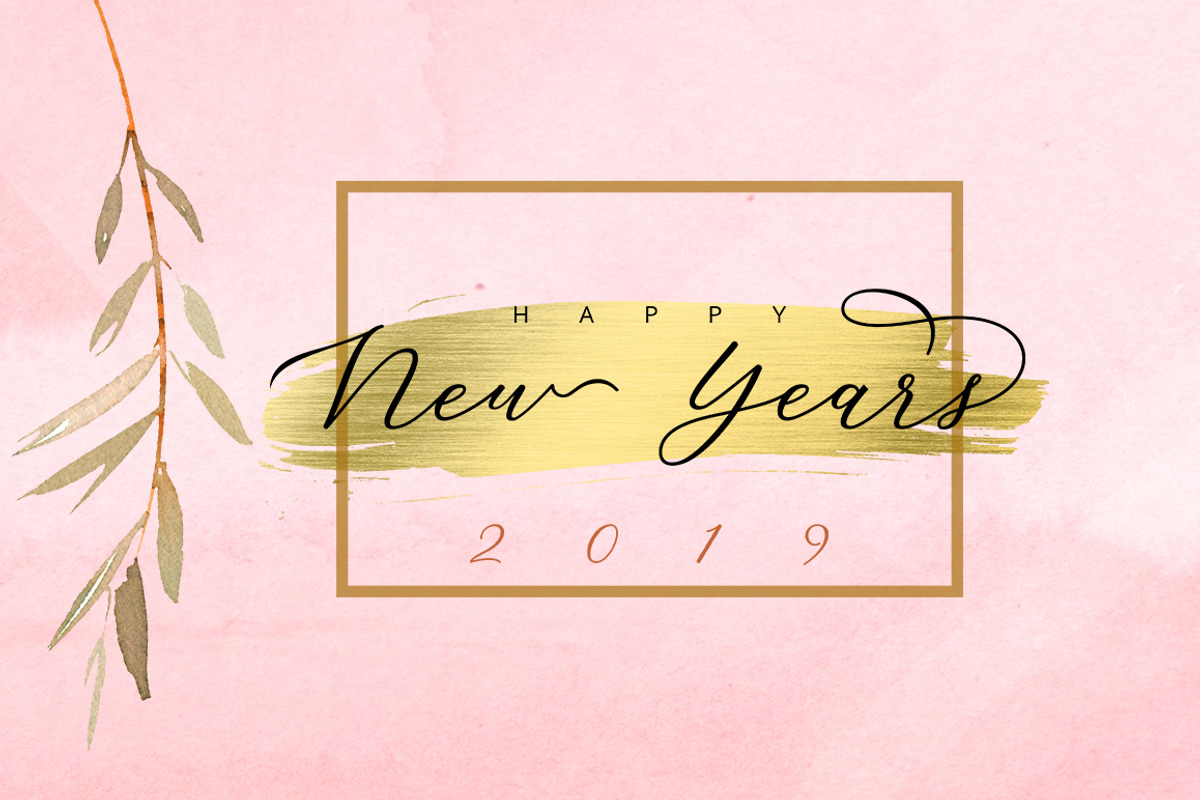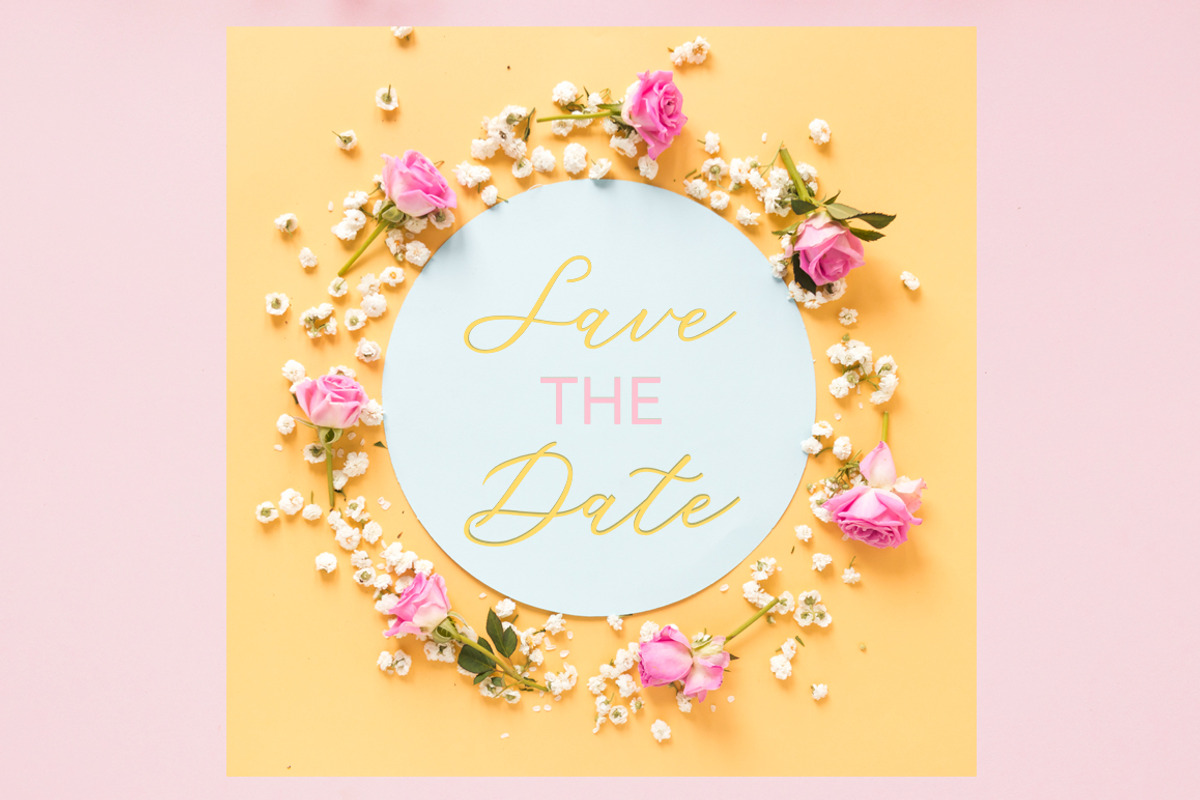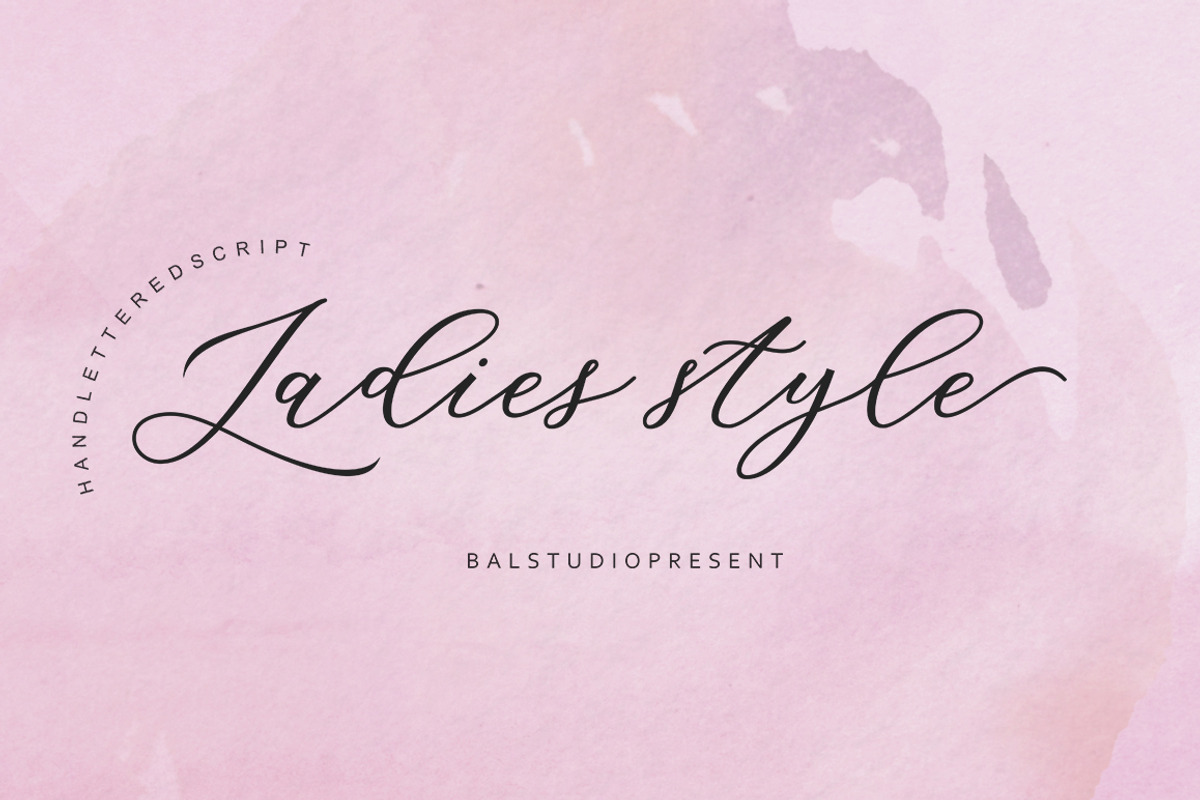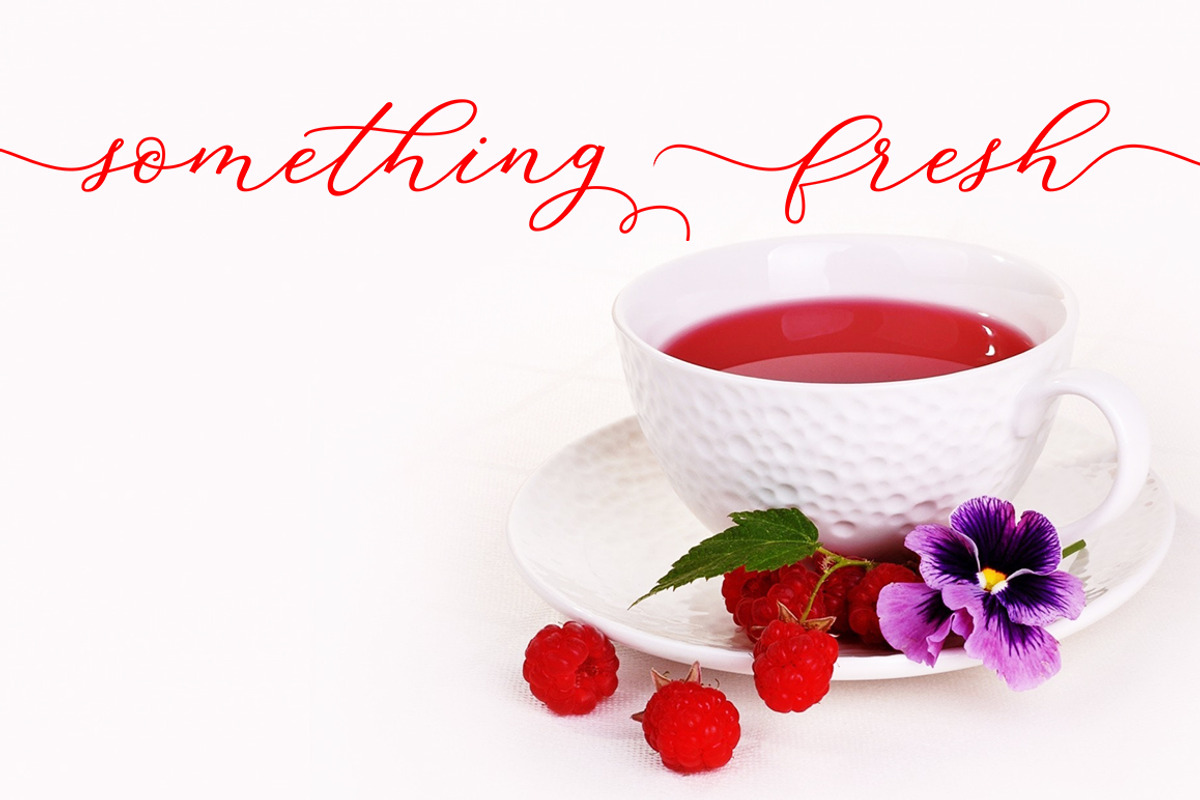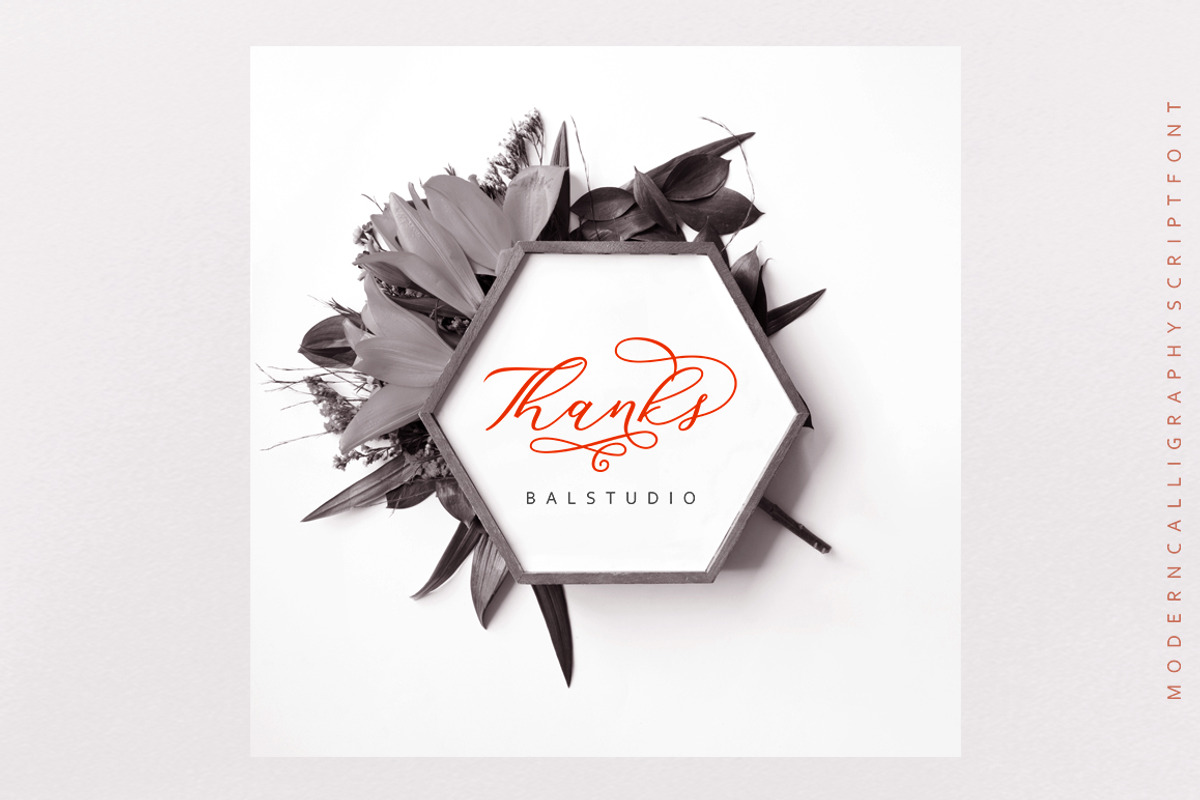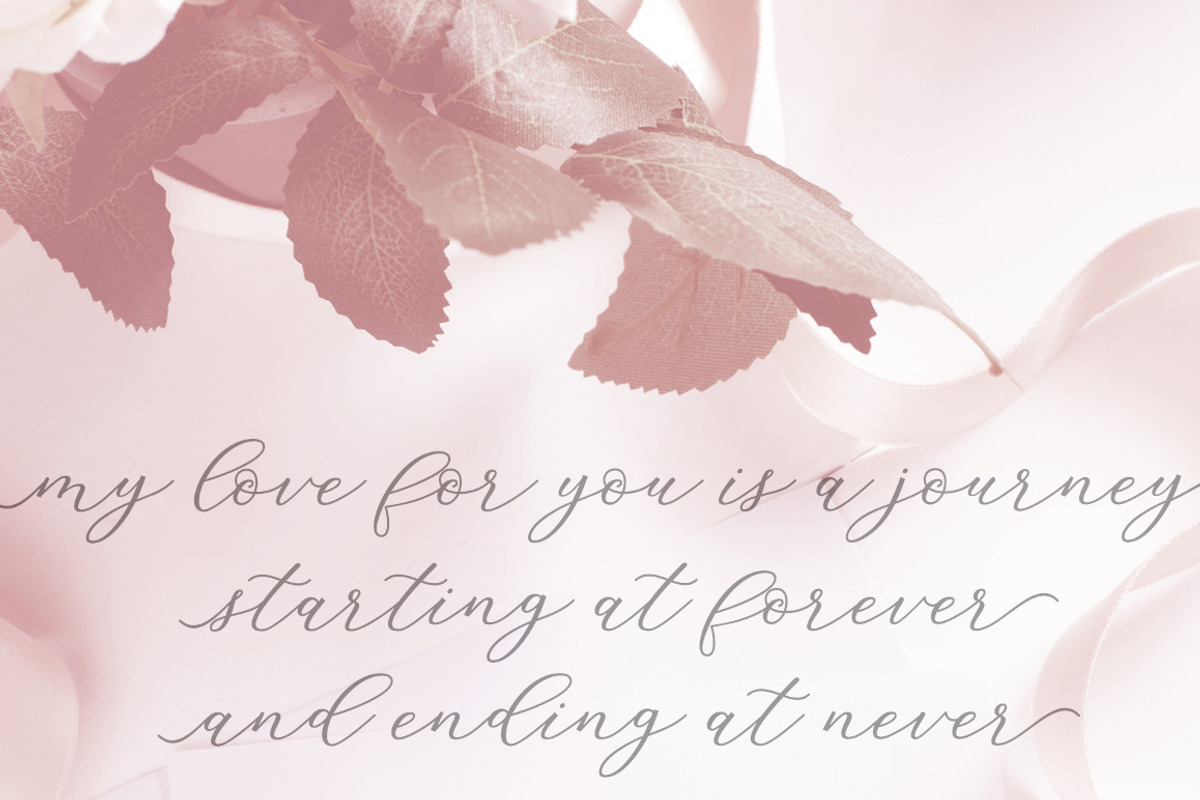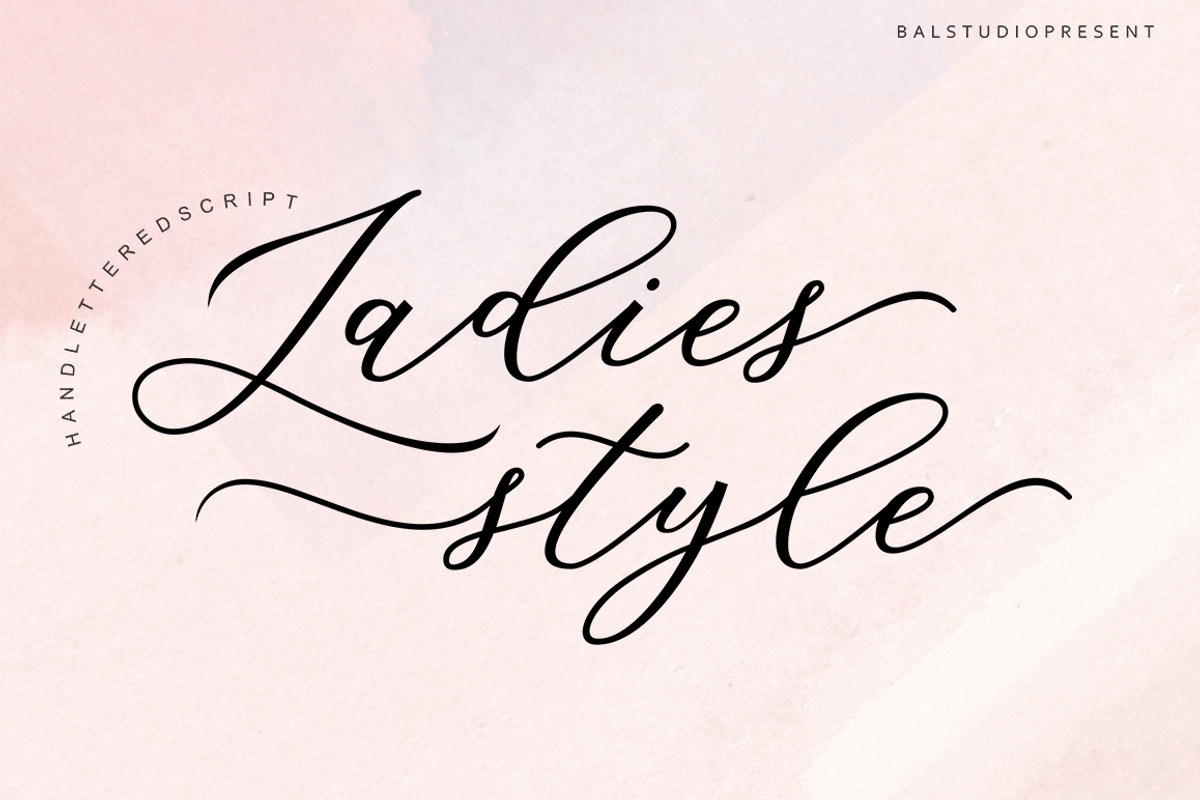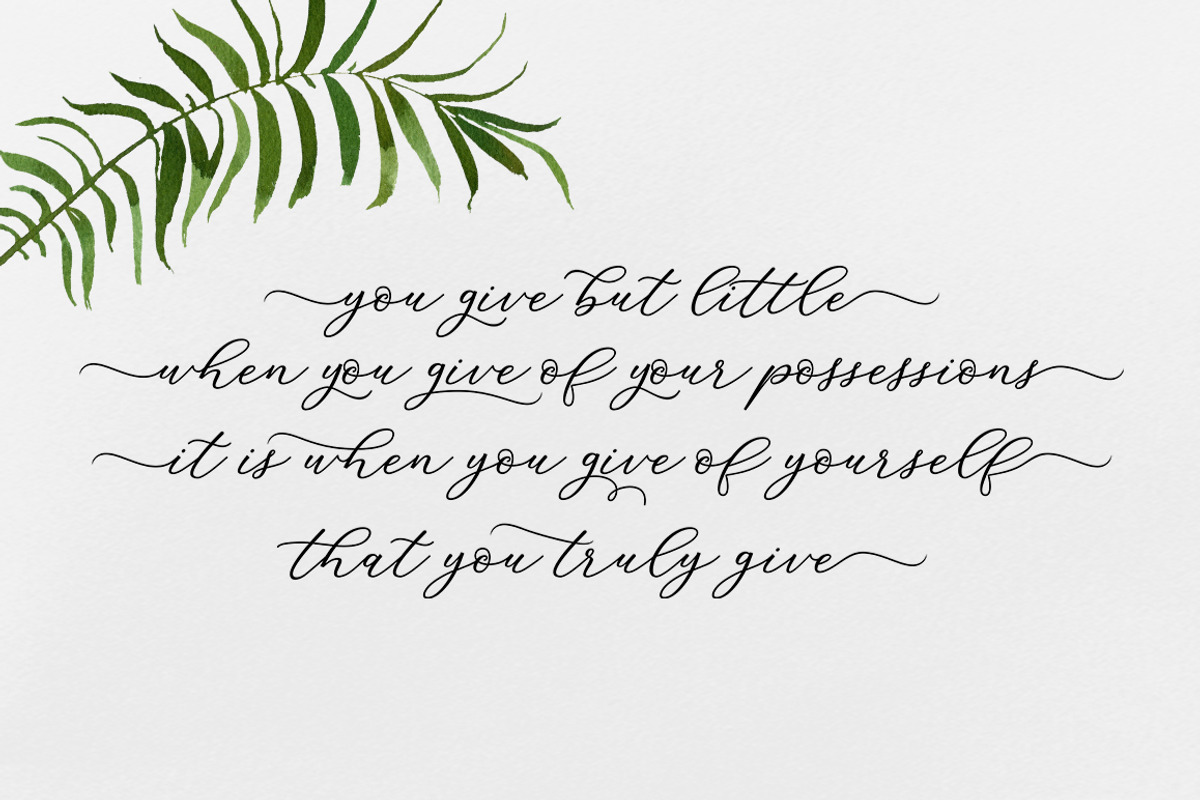
Ladies Style
Ladies Style is a modern script with handwriting, decorative characters, and dancing baselines! Very suitable in use Like blog header, branding, t-shirt, wedding, social media, product design, stationery, advertising, clothing, book cover, business cards, greeting cards, branding, merchandise, invitations and handmade quotes and more.